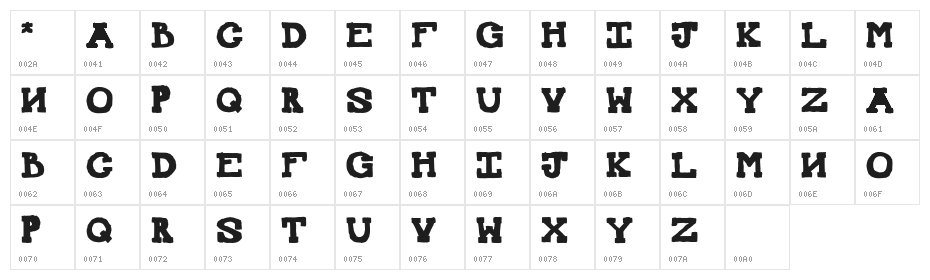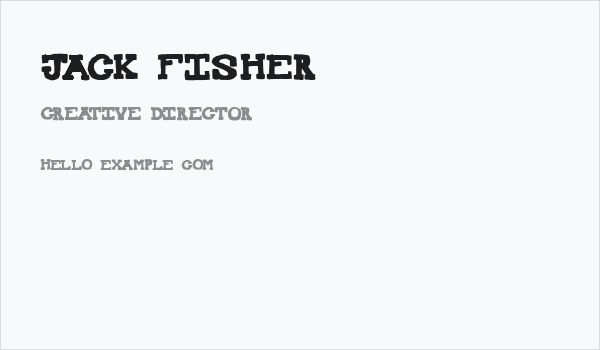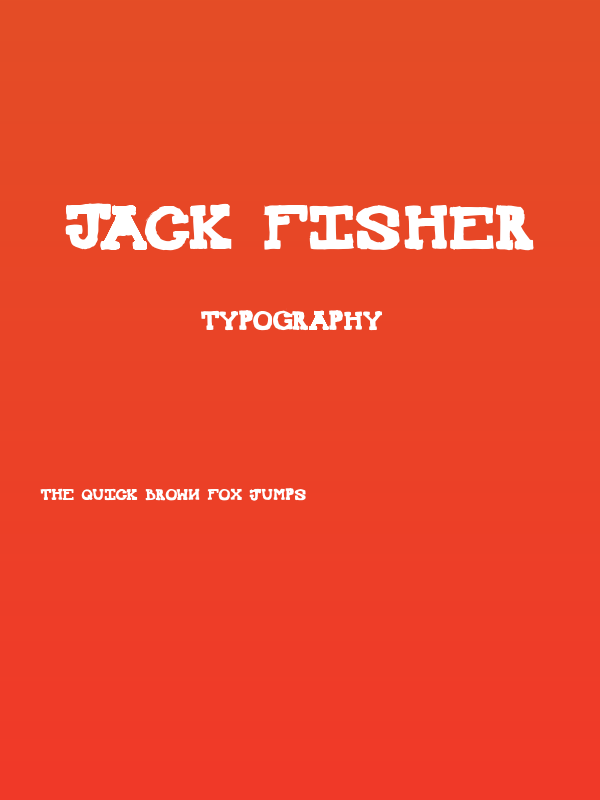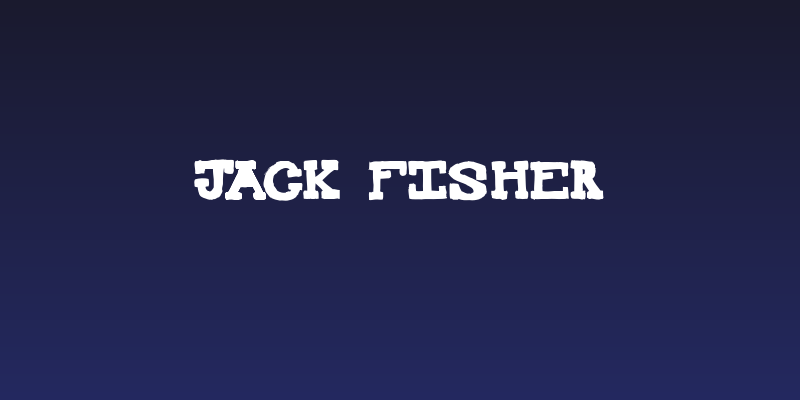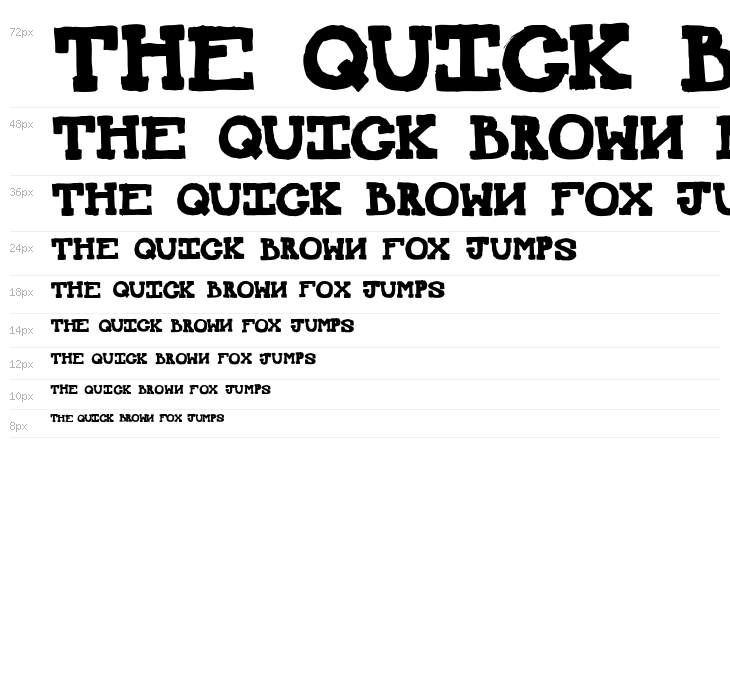
Jack Fisher Font
Jack Fisher Description
This font exhibits a bold and rugged style, characterized by its thick, uneven strokes and a slightly distressed appearance. The uppercase letters are prominent and have a hand-drawn quality, giving them a unique, organic feel. The characters are wide and have a substantial presence, making them stand out effectively. The font's design is reminiscent of vintage or retro styles, often used in contexts that require a strong, impactful visual statement. Its distinctive look is suitable for projects that aim to convey a sense of boldness and individuality.